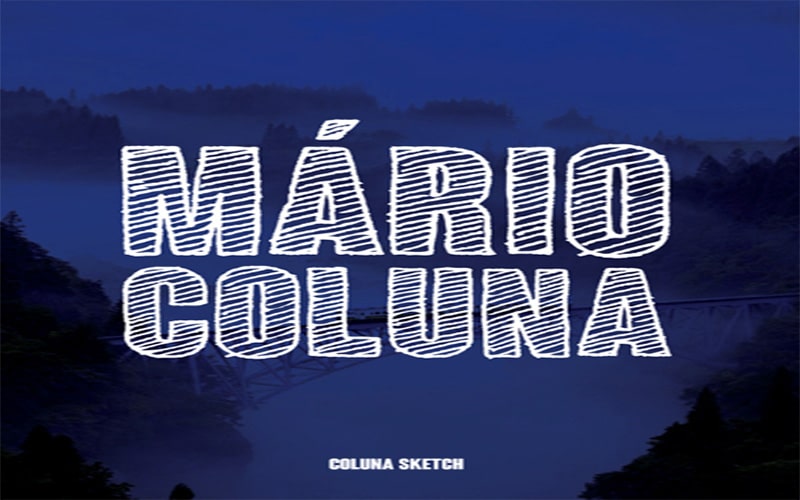
Colunasketch-condensed bold Font is a condensed, bold, and sans-serif typeface. It looks delicate and more glorious because of its name which has classic, elegant, bold, and clean letters.
The famous designer Marco Ugolini designed this font for the first time. This stunning typeface consists of stylish and influential characters.
An amazing font contains 3 different unique styles such as “Coluna Bold Condensed”, “Coluna Rounded”,” Coluna Outlines”, and “Coluna Sketch” font styles.
It contains 274 unique numbers of glyphs and 1000 units per EM including all Basic Latin, Latin-1 Supplement, General Punctuation marks, & Letterlike Symbols.
This high-quality typeface helps to make your designs look more professional. This stylish look makes it perfect for creating beautiful text pieces.
This elegant font can be used for headlines, titles, statements, and for other commercial purposes. The subfamily of this typeface is regular.
A cool cursive-free version font contains 286 strong characters including 26 uppercase and lowercase letters, punctuations, and numbers. Let’s take a look at its beautiful texture.